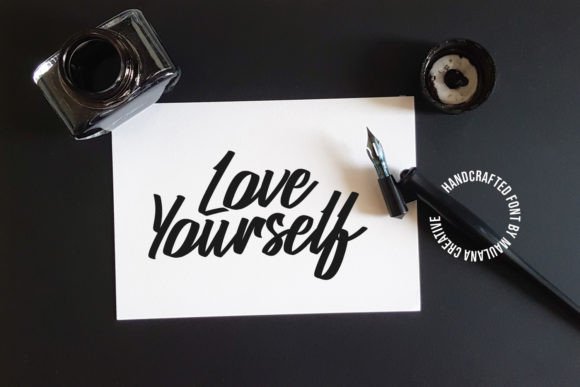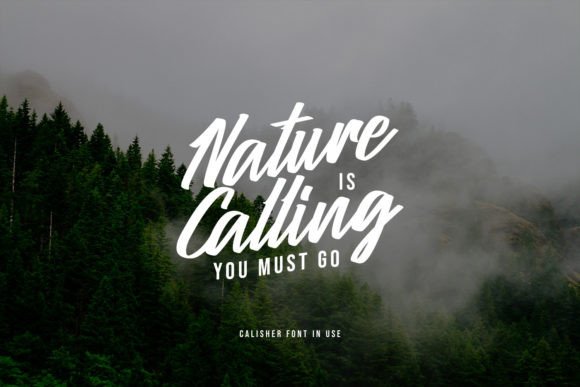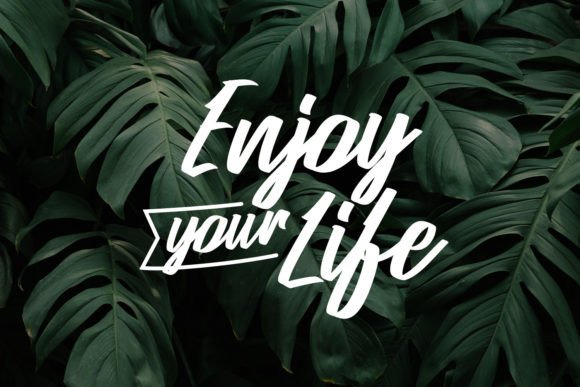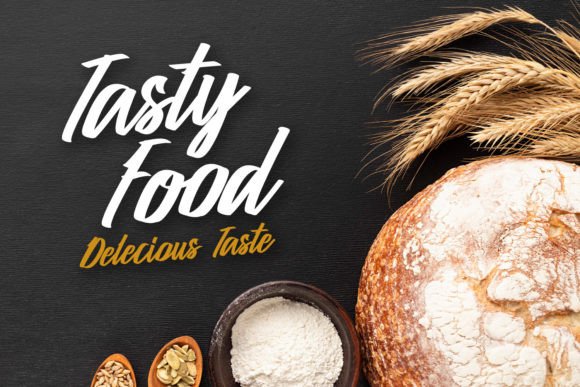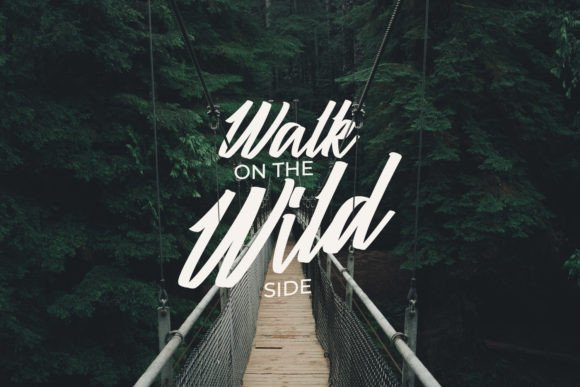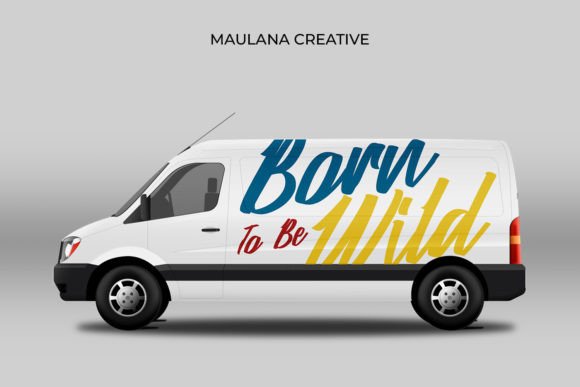
Discover the Elegance of Calisher Font: A Versatile Script Typeface for Creative Projects
In the world of typography, fonts play a crucial role in conveying the tone and personality of a brand, design, or artwork. Among the numerous font styles available, script fonts have gained immense popularity for their elegance and sophistication. One such font that has caught the attention of designers and crafters is the Calisher Font, also known as Calisher Script Font. In this article, we’ll explore the features, uses, and benefits of the Calisher font, and how it can elevate your creative projects.
What is Calisher Font?
Calisher Font is a beautiful script typeface that boasts a unique blend of classic and modern elements. Its fluid strokes, elegant connections, and refined letterforms make it an excellent choice for designs that require a touch of sophistication. The font’s versatility allows it to be used in various contexts, from logo design and social media graphics to movie titles, book titles, and even lengthy text content.
Key Features of Calisher Font
- Elegant Script Style: Calisher Font features a classic script style with flowing connections between letters, creating a smooth and harmonious look.
- Versatile: This font is suitable for a wide range of applications, including logo design, social media graphics, movie titles, book titles, and more.
- Readable: Despite its script nature, Calisher Font remains highly readable, even in smaller sizes or longer text content.
- Signature and Script Typeface: Calisher Font is perfect for use as a secondary text font, paired with a signature or script typeface to add contrast and visual interest.
Uses of Calisher Font
Calisher Font’s versatility makes it an excellent choice for various creative projects. Here are some ideas to get you started:
- Logo Design: Use Calisher Font to create a sophisticated and memorable logo for your brand, product, or service.
- Social Media Graphics: Add a touch of elegance to your social media graphics, such as Facebook posts, Instagram stories, or Twitter headers.
- Movie and Book Titles: Create stunning title graphics for movies, books, or even video games with Calisher Font.
- Short and Long Text Content: Use Calisher Font for short text content, such as captions or taglines, or for longer text content, like articles or blog posts.
Benefits of Using Calisher Font
By incorporating Calisher Font into your creative projects, you can enjoy several benefits:
- Enhanced Visual Appeal: Calisher Font’s elegant script style adds a touch of sophistication and refinement to your designs.
- Improved Readability: The font’s clear and readable design ensures that your message is conveyed effectively, even in smaller sizes or longer text content.
- Versatility: Calisher Font’s versatility allows you to use it across various platforms and applications, from digital to print.
- Time-Saving: With Calisher Font, you can quickly create professional-looking designs without spending hours on typography and layout.
Tips for Using Calisher Font Effectively
To make the most of Calisher Font, follow these tips:
- Pair with Contrasting Fonts: Combine Calisher Font with a contrasting font, such as a sans-serif or serif font, to create visual interest and hierarchy.
- Adjust Font Size and Color: Experiment with different font sizes and colors to create a visually appealing design that captures attention.
- Use for Headings and Titles: Calisher Font is perfect for headings and titles, so use it to create a stunning visual impact.
In conclusion, Calisher Font is a versatile and elegant script typeface that can elevate your creative projects to the next level. Its unique blend of classic and modern elements makes it suitable for various applications, from logo design and social media graphics to movie titles and book titles. With its readability, versatility, and visual appeal, Calisher Font is an excellent choice for designers and crafters looking to add a touch of sophistication to their work.